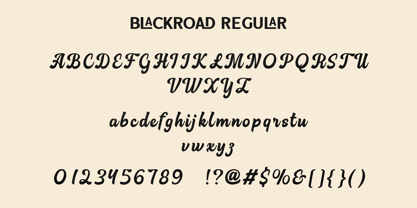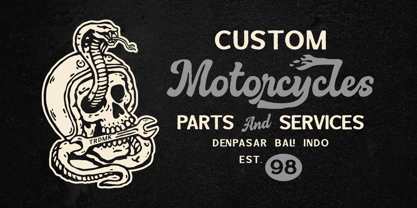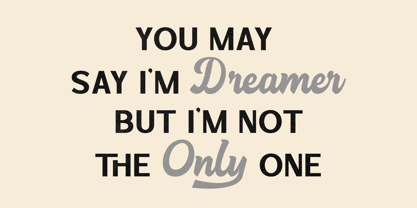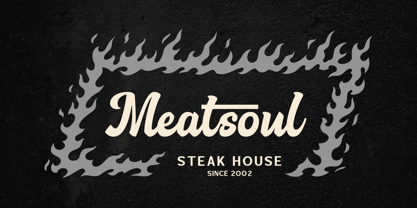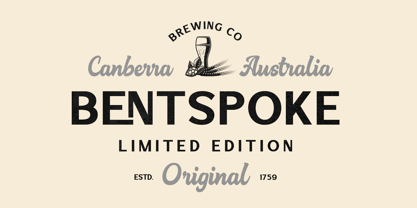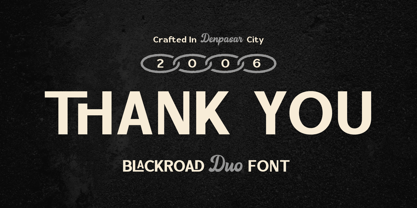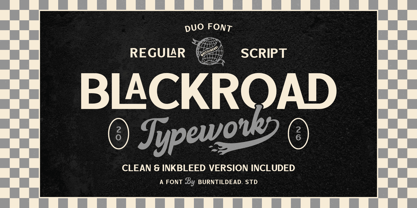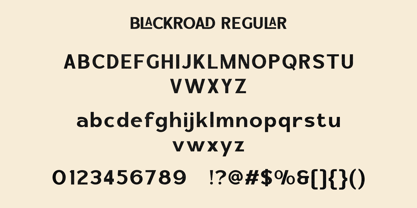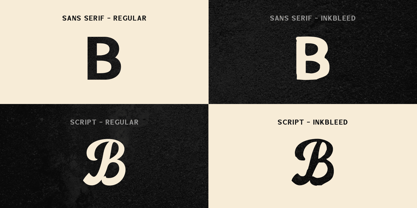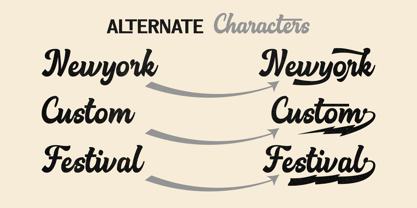
Blackroad
by Burntilldead
The Blackroad Font Family was designed by Eric Kurniawan and published by Burntilldead. Blackroad contains 4 styles and family package options.
Blackroad is a bold and stylish duo font that combines a clean sans serif with a smooth vintage script. Designed to bring a strong retro personality, this font is perfect for creating eye-catching designs with a classic and rugged feel.
With its regular and script styles, Blackroad gives you the flexibility to mix and match typography effortlessly. The clean sans serif keeps everything readable and modern, while the script adds a handcrafted, authentic touch.
This font also comes with alternate characters and inkbleed versions, giving your design a more natural, vintage print effect—perfect for achieving that old-school look.
Features: A - Z set (Uppercase & Lowercase), Number, Punctuation, Alternates, Ligatures, Multilingual
Designers: Eric Kurniawan
Foundry: Burntilldead